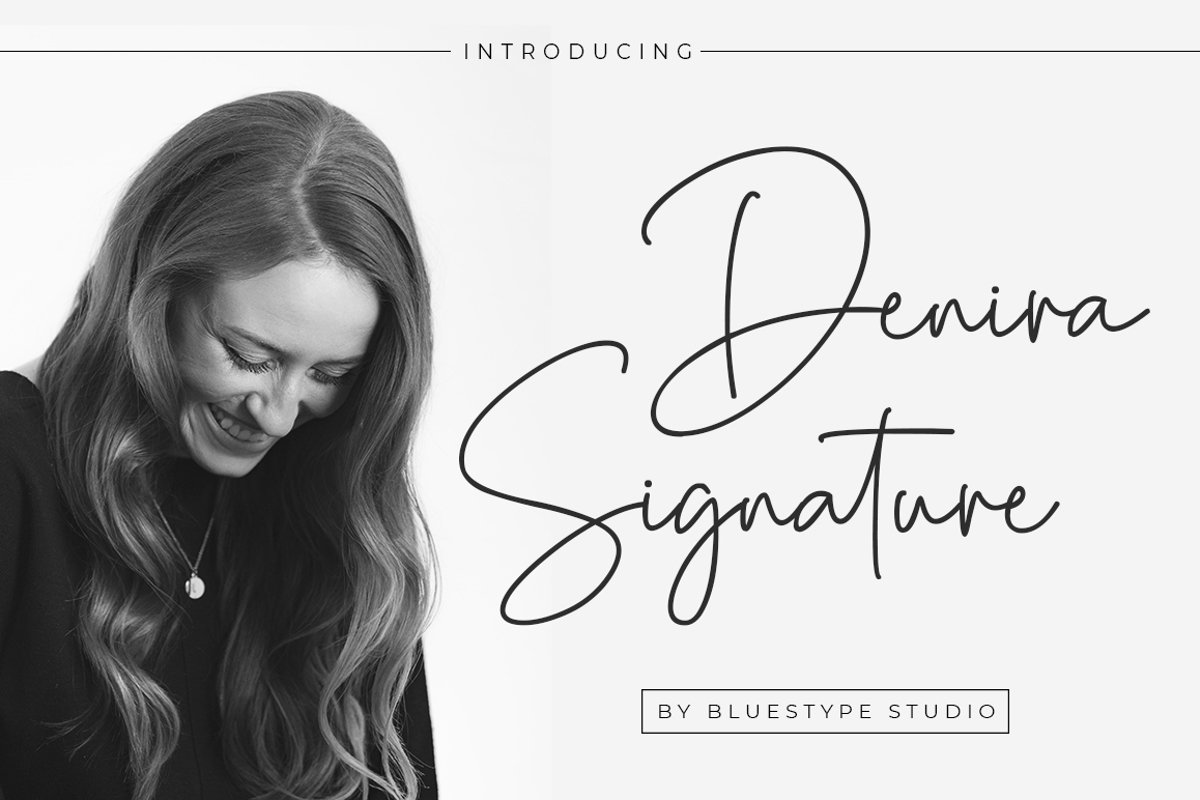
Denira Signature - Beauty Handwritten
Denira Signature
This is our newest product called Denira Signature. Denira is an incredibly stunning script that will turn any design idea into a true stand out!
- Ligature